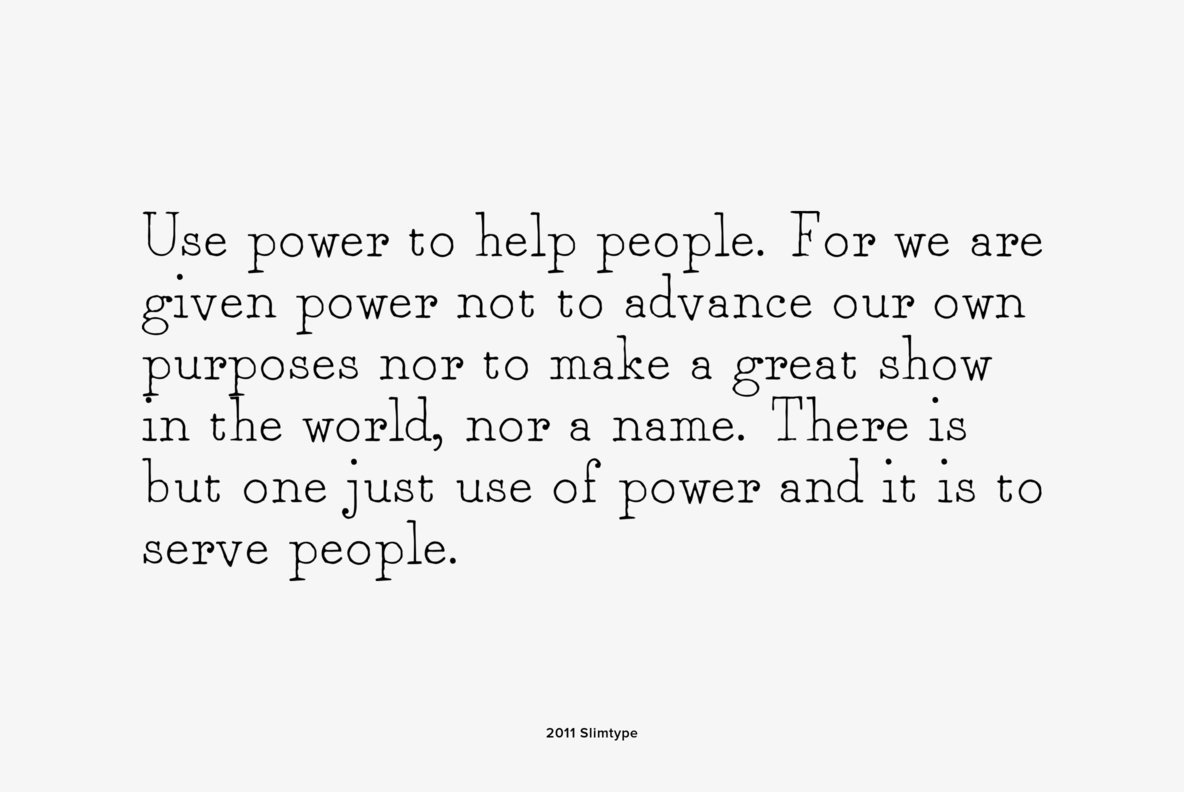
2011 Slimtype Font
This light manual font, with two styles, is a looking like slab serif or typewriter pattern. It is containing Western and Northern European, Icelandic, Baltic, Eastern, Central European and Turkish specific characters, plus old style numerals, ct, st and f standard ligatures. The two styles are both legible from 10-11 pts.